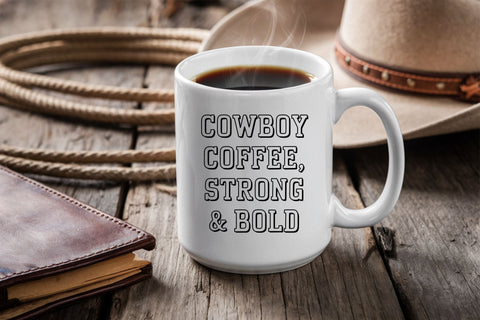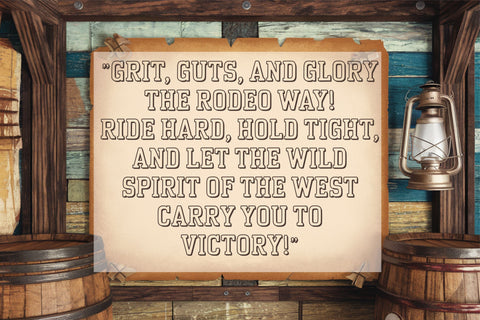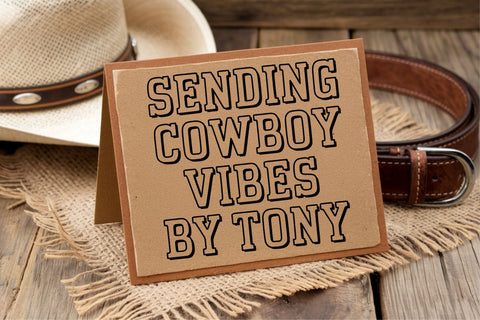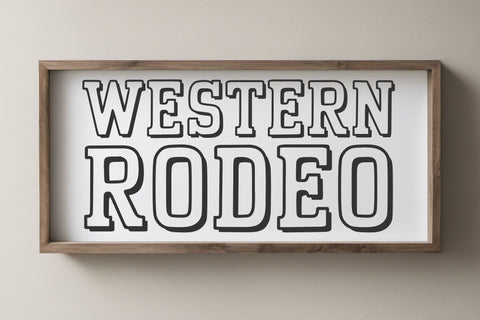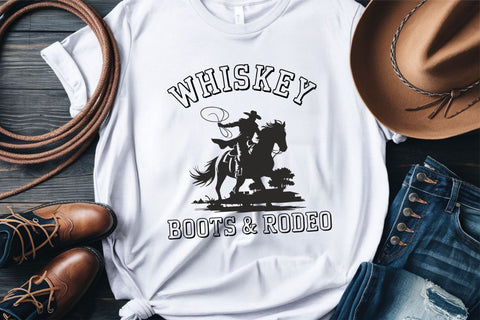
Western Sketch Font | Rodeo Cowboy Font | Wild West Letters
The Western Sketch Font is a bold, rugged typeface inspired by the Wild West. Perfect for cowboy branding, rodeo graphics, farmhouse decor, rustic signs, and vintage Western-style t-shirts. Whether you're designing saloon posters, rodeo merchandise, or country-themed apparel, this font delivers an authentic Western look.
This Western cowboy font is ideal for Cricut and Silhouette projects, sublimation, and digital designs. It works great for Western invitations, logo designs, banners, rodeo flyers, and rustic home decor.
✔ Western Sketch Font – Bold, vintage-style rodeo typeface
🏆 Great for:
🤠 Rodeo & Western Graphics
🏕 Farmhouse & Rustic Designs
🎨 Sublimation & Cricut Projects
👕 T-Shirts, Mugs, Stickers & Posters
📢 Vintage Logos & Signs
🏡 Country Decor & Digital Art